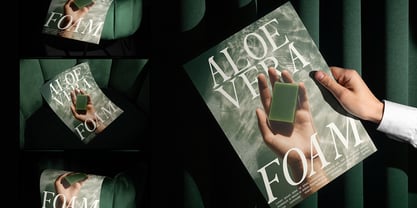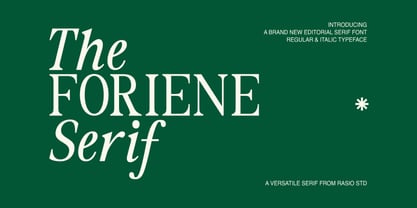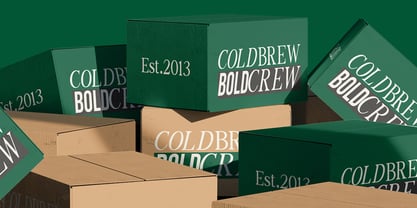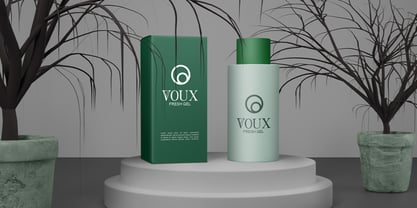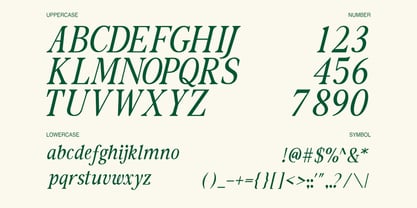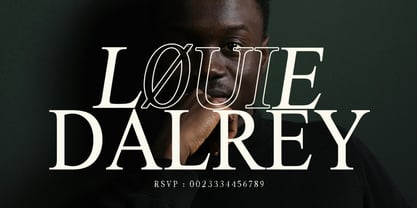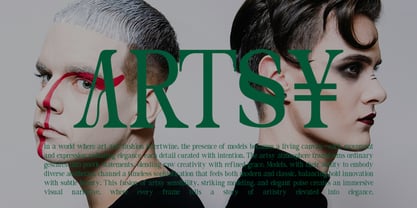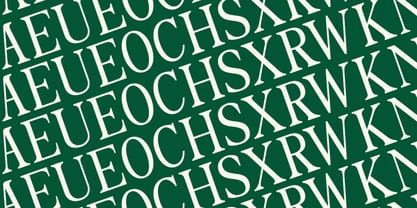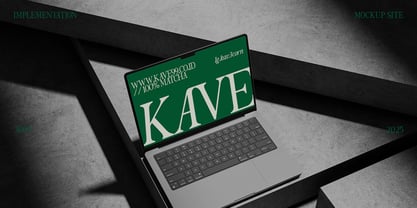
The Foriene Serif
Foriene Serif blends classic sophistication with a modern editorial touch, now available in both regular and italic styles. Its elegant contrast, refined curves, and balanced proportions evoke a timeless aesthetic that feels both professional and graceful. The italic version adds fluidity and expression, perfect for emphasizing quotes, headlines, and refined layouts. Including uppercase, lowercase, numbers, and symbols, Foriene embodies a seamless harmony between tradition and modernity — ideal for magazines, branding, and editorial design that value refined typography and visual balance.